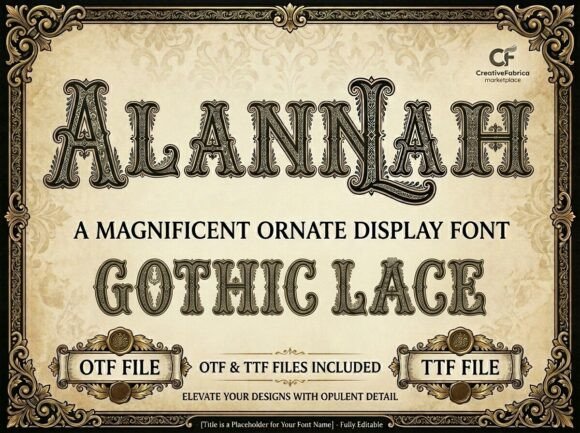
Introducing Alannah Font: The Ultimate Decorative Display Font for Creative Minds
Are you tired of using the same old fonts in your designs? Look no further than Alannah Font, a stunning decorative display font that’s sure to turn heads. With its unique artistic elements and strong visual personality, this font is perfect for creators who want to break away from the ordinary and make a statement.
Alannah Font is designed to be the center of attention, featuring intricate details and creative letterforms that are sure to grab the viewer’s eye. Whether you’re designing a modern poster, a unique brand identity, or eye-catching social media content, this font adds an instant “wow” factor to any project. Its bold and artistic style makes it perfect for high-impact designs where the typography needs to do the talking.
One of the best things about Alannah Font is its versatility. It’s perfect for a wide range of design applications, including:
- Poster Design: Create headlines that people can’t look away from. With Alannah Font, you can create bold and eye-catching posters that are sure to grab attention.
- Branding & Logos: Build a unique identity for creative businesses. This font is perfect for creating artistic logos and brand identities that stand out from the crowd.
- Apparel & Merch: Perfect for T-shirts, hoodies, and tote bag designs. Add a touch of personality to your apparel and merchandise with this stunning font.
- Social Media: Make your quotes and announcements stand out in the feed. With Alannah Font, you can create eye-catching social media content that gets noticed.
- Packaging: Give your products a premium feel with this beautiful font. It’s perfect for creating labels, packaging, and other materials that require a touch of elegance.
Why Choose Alannah Font?
So why choose Alannah Font over other decorative display fonts? Here are just a few reasons:
- Unique and Artistic: This font features unique artistic elements and a strong visual personality that sets it apart from other fonts.
- High-Impact Typography: With its intricate details and creative letterforms, Alannah Font is perfect for high-impact designs where the typography needs to do the talking.
- Professional and Polished: Despite its bold and artistic style, Alannah Font maintains a professional and polished finish that’s perfect for a wide range of design applications.
Tips for Using Alannah Font
Here are a few tips for using Alannah Font in your designs:
- Use it sparingly: Because of its bold and artistic style, it’s best to use Alannah Font sparingly. Use it for headlines or titles, and pair it with a simpler font for body text.
- Experiment with colors: Alannah Font looks great in a wide range of colors. Experiment with different colors and combinations to find the one that works best for your design.
- Play with sizes: This font looks great in a wide range of sizes. Experiment with different sizes to find the one that works best for your design.
In conclusion, Alannah Font is a stunning decorative display font that’s perfect for creators who want to break away from the ordinary and make a statement. With its unique artistic elements and strong visual personality, this font is sure to grab attention and add an instant “wow” factor to any project. Its versatility and ease of use make it perfect for a wide range of design applications, from poster design and branding to apparel and packaging. So why settle for an ordinary font when you can use something truly extraordinary? Try Alannah Font today and take your designs to the next level!